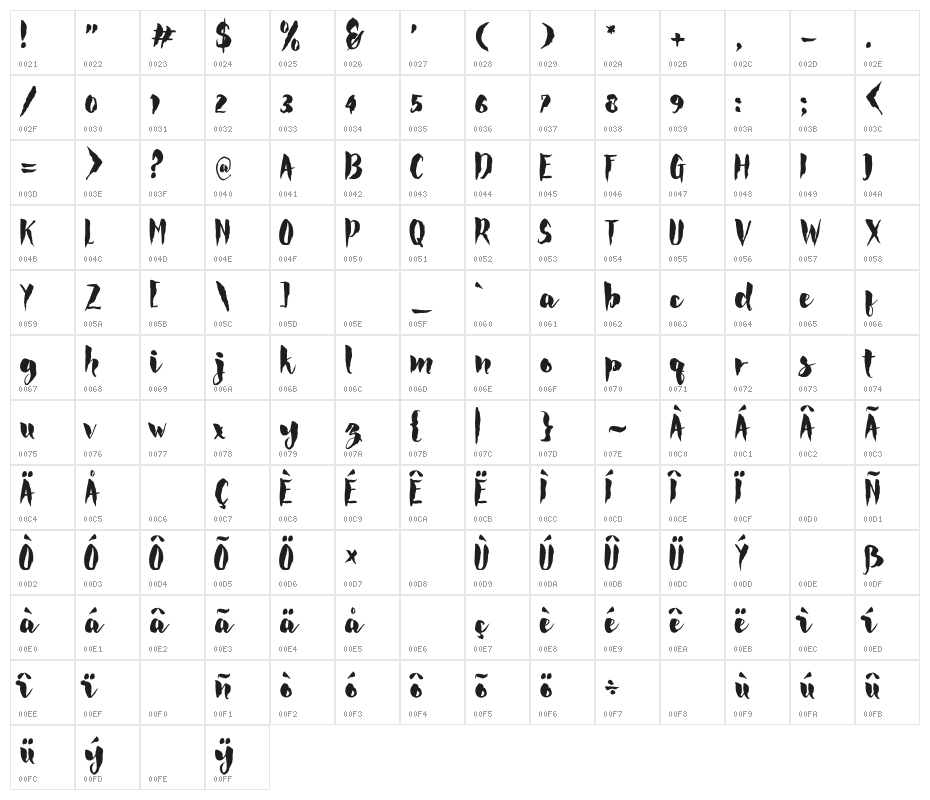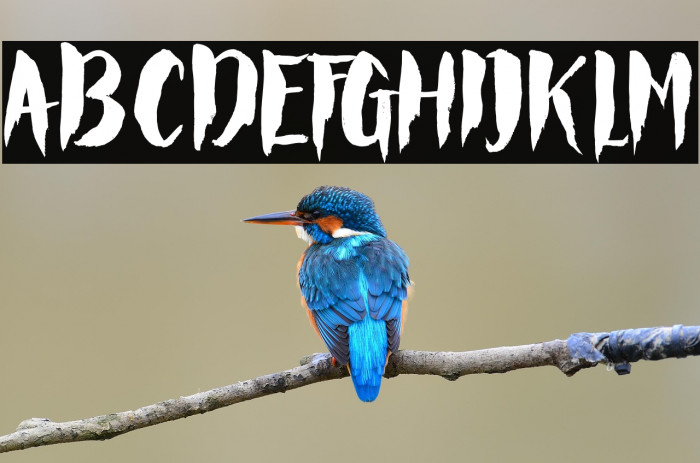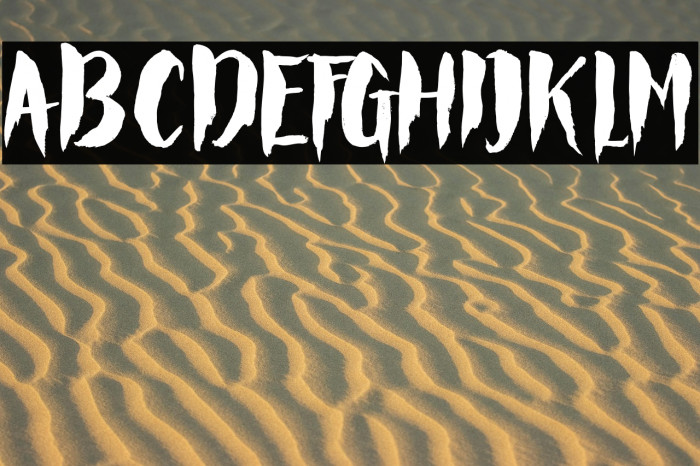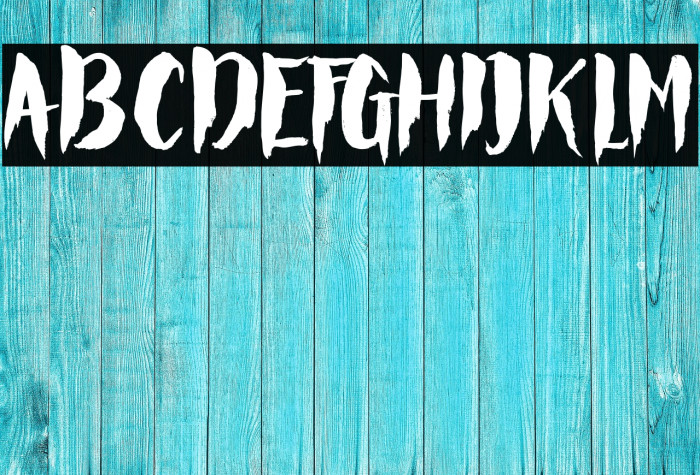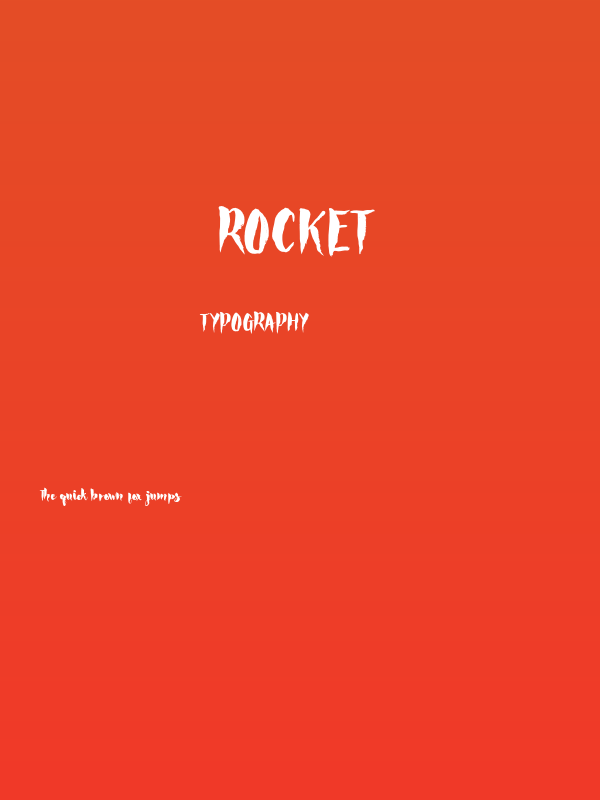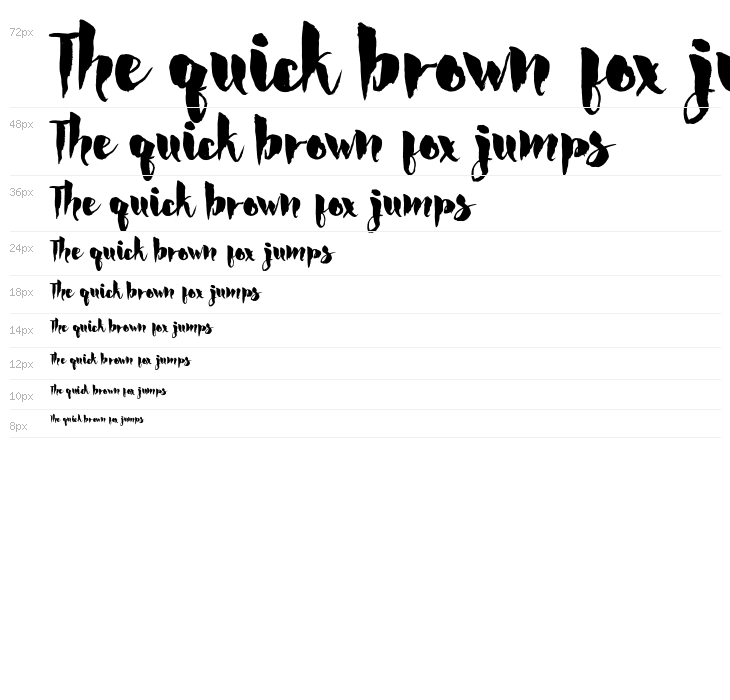
Rocket Font
Rocket Description
This font features a bold and expressive brush script style, characterized by its dynamic and energetic strokes. The letters have a hand-painted appearance, with varying thickness and a slightly rough texture that adds to its artistic flair. The uppercase and lowercase letters maintain a consistent flow, while the numerals and special characters complement the overall aesthetic. This font exudes a sense of creativity and spontaneity, making it ideal for projects that require a personal touch.
| Use Case | Logos, Headlines, Posters |
| Proposed Projects | Ideal for branding, posters, invitations, and any creative projects that require a personal and artistic touch. |